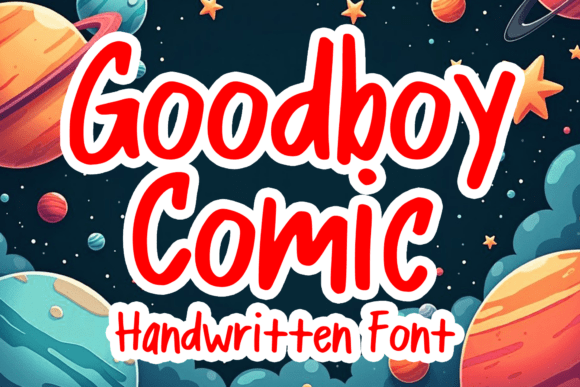
The Perfect Blend of Fun and Creativity: Introducing Goodboy Comic Font
Have you ever sat down with a blank canvas, a blank sheet of paper, or a blank digital design, and just let your imagination run wild? The thrill of bringing a new idea to life is exhilarating, and for designers, it’s a moment that never gets old. It’s that spark of creativity that drives us to push the boundaries of what’s possible and create something truly unique.
That’s where the Goodboy Comic Font comes in – a playful, expressive, and versatile marker font that’s perfect for elevating your design projects to the next level. Whether you’re working on stickers, t-shirt designs, or magazine covers, this font adds a super cool touch that’s sure to captivate your audience. With its wide range of design possibilities, the Goodboy Comic Font is a valuable asset for any designer looking to bring their creative vision to life.
Goodboy Comic Font Key Features
- Font Type: A comic sans-serif font, designed to mimic the feel of hand-drawn comic book art.
- Unique Characteristics: Features a playful, informal feel with exaggerated letterforms and subtle irregularities, making it ideal for comic books, children’s books, and other creative projects.
Goodboy Comic Font Review
I was excited to dive into the Goodboy Comic Font, hoping to find a fun and playful addition to my design projects. After some hands-on experience, here’s what I think.
- Fun and quirky vibe: The Goodboy Comic Font does a great job of capturing a playful, lighthearted atmosphere, making it perfect for projects like children’s books, comics, or even social media graphics.
- Unique character set: The font includes a wide range of characters, from standard letters and numbers to more creative elements like speech bubbles and emoticons.
- Ease of use: The font is relatively easy to use, even for designers who aren’t familiar with comic fonts.
- Limited flexibility: While the font is great for its intended use cases, it may not be the best choice for more formal or professional projects.
- Potential for overuse: The Goodboy Comic Font is so playful and fun that it’s easy to overuse it, which can make your design feel cheesy or unprofessional.
- Not ideal for small text: Due to its playful nature, the font can be difficult to read in small sizes, which may limit its use in certain applications.
Overall, I think the Goodboy Comic Font is a great addition to any designer’s toolkit, but it’s essential to use it judiciously and within its intended use cases. With a little creativity and restraint, this font can add a lot of fun and personality to your designs.
Tips for Getting the Most Out of Goodboy Comic Font
Use the Goodboy Comic font for comic book-style illustrations, children’s books, and graphic novels.
Combine the Goodboy Comic font with bold lines and vibrant colors to create a dynamic and playful visual style.
Experiment with different font sizes and styles to create a sense of hierarchy and emphasis in your design.
The Goodboy Comic font is ideal for:
Comic book-style illustrations and graphic novels
Children’s books and educational materials
Graphic design projects
Alternatives to Goodboy Comic Font for Designers
Comic Neue
Comic Neue is a modern comic book-inspired font that is highly legible and versatile. It’s ideal for use in digital media, such as websites, social media, and mobile apps. Comic Neue has a more refined and polished look compared to Goodboy Comic Font, making it suitable for a wider range of design projects.
Pacifico is a beautiful, elegant font that’s reminiscent of classic comic book lettering. It’s perfect for use in editorial design, advertising, and branding. While Pacifico has a more vintage feel, it’s still highly legible and works well in digital media. Compared to Goodboy Comic Font, Pacifico has a more refined and sophisticated look.
Great Vibes is a fun, energetic font that’s inspired by classic comic book lettering. It’s ideal for use in digital media, such as websites, social media, and mobile apps. Great Vibes has a more playful and casual feel compared to Goodboy Comic Font, making it suitable for design projects that require a lighthearted tone.
Can I use the Goodboy Comic Font for custom logo design?
Yes, the Goodboy Comic Font can be used for custom logo design. Its bold and playful appearance makes it well-suited for creating eye-catching logos for comic book publishers, graphic novel series, and other entertainment-related businesses. However, be sure to check the font’s licensing terms to ensure that you are using it in compliance with the license agreement.